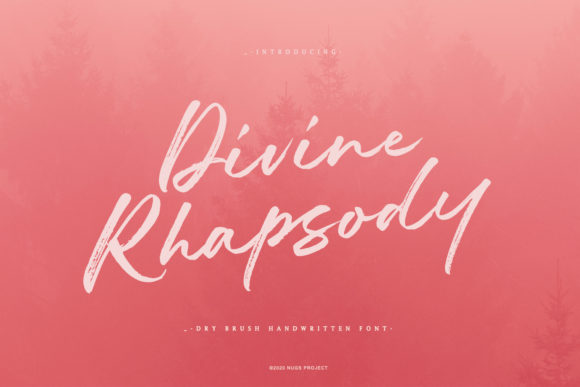
Introducing Divine Rhapsody, an exquisite brushed handwritten font family that captures the essence of romance and elegance. Step into a world of flowing curves and enchanting strokes designed to make your designs sing.
With its graceful ligatures and eye-catching swashes, Divine Rhapsody adds a touch of sophistication to any project. Whether crafting logos, wedding invitations, headings, or social media graphics, this font family will elevate your designs to new heights.
Imagine your wedding hashtag, meticulously scribed in the sweeping lines of Divine Rhapsody, adorning your special day as a timeless reminder of your love. Its delicate flourishes and romantic undertones will leave a lasting impression on your guests, creating a visual symphony that reflects the joy and beauty of your union.
Beyond its nuptial charm, Divine Rhapsody seamlessly transitions into a versatile masterpiece. It effortlessly adorns t-shirts with its playful spirit, letterheads with its professional elegance, and signage with its bold presence. Its adaptability knows no bounds, making it the perfect choice for labels, news, and posters, adding a touch of refined elegance to any project.
Unleash your creativity with Divine Rhapsody and let your designs flourish. Its versatility extends to badges, where it adds a touch of individuality and uniqueness to your brand. With Divine Rhapsody as your font of choice, your designs will leave an unforgettable impression, captivating audiences and leaving them yearning for more.
Join the symphony of design excellence with Divine Rhapsody. Its emotional appeal and creative possibilities will transform your projects into works of art. Experience the magic of handwritten elegance and let your designs sing with Divine Rhapsody.